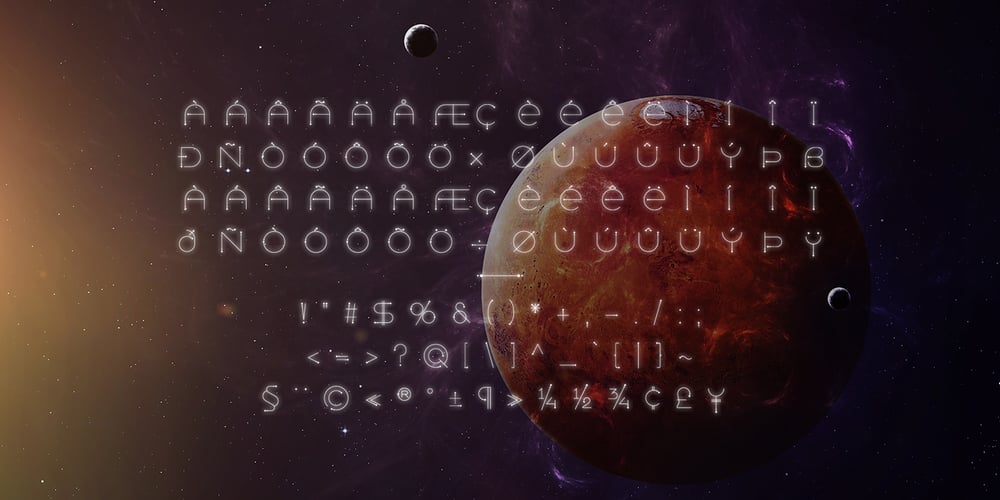
Canis Minor
Canis Minor font
Canis Minor Font Family was designed by Olga Ryzhychenko and published by Ryzhychenko Olga. Canis Minor contains 1 styles and family package options. To the creation of this font I was inspired by the constellation “Canis Minor”. The constellation consists of two bright stars, Procyon and Gomeisa. Procyon is the eighth brightest star in the sky. Two small points in the font like two stars in constellation. Font is built on round laconic forms. Shall be good for posters, headers and creative typography.